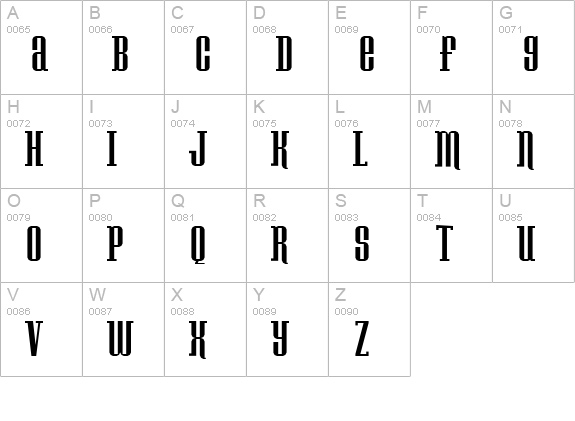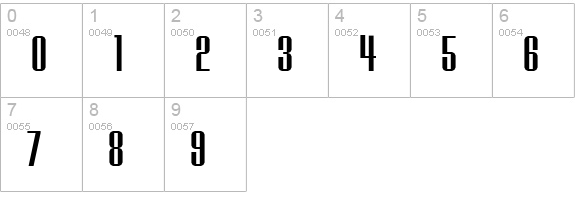
Konspiracy Theory Font Details
Konspiracy Theory font is a unique and captivating typeface that is sure to make your designs stand out. With its mysterious and edgy appearance, this font is perfect for projects that require a touch of intrigue and conspiracy. The sharp angles and bold lines of Konspiracy Theory give it a modern and dynamic feel, making it ideal for a wide range of design applications. Designed with attention to detail, Konspiracy Theory font is versatile and can be used for anything from posters and flyers to logos and branding. Its bold and impactful look will grab the attention of viewers and leave a lasting impression. Best of all, Konspiracy Theory font is completely free to download at FontsMarket.com. This means you can start using this eye-catching font in your projects right away, without having to worry about any additional costs. Don't miss out on the opportunity to add a touch of mystery and intrigue to your designs with Konspiracy Theory font.